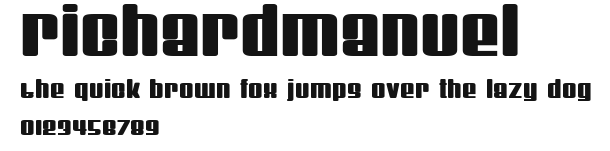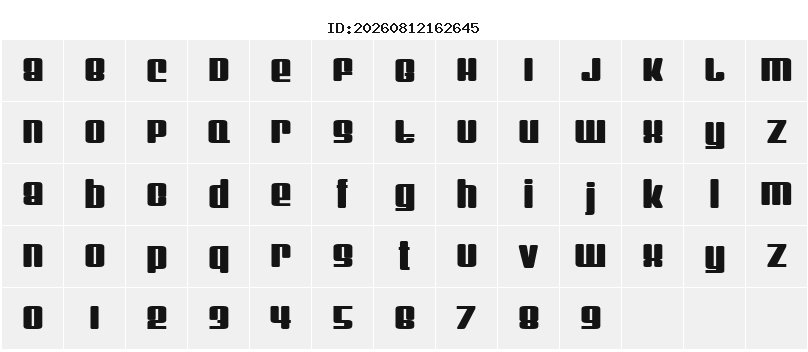
RichardManuel Preview
• Font Name: RichardManuel
• Full Font Name: RichardManuel
• PostScript Name: RichardManuel
About RichardManuel.ttf
RichardManuel.ttf is a modern, elegant sans-serif font designed for ultimate readability and visual harmony. Perfect for branding, headlines, web design, and print materials.